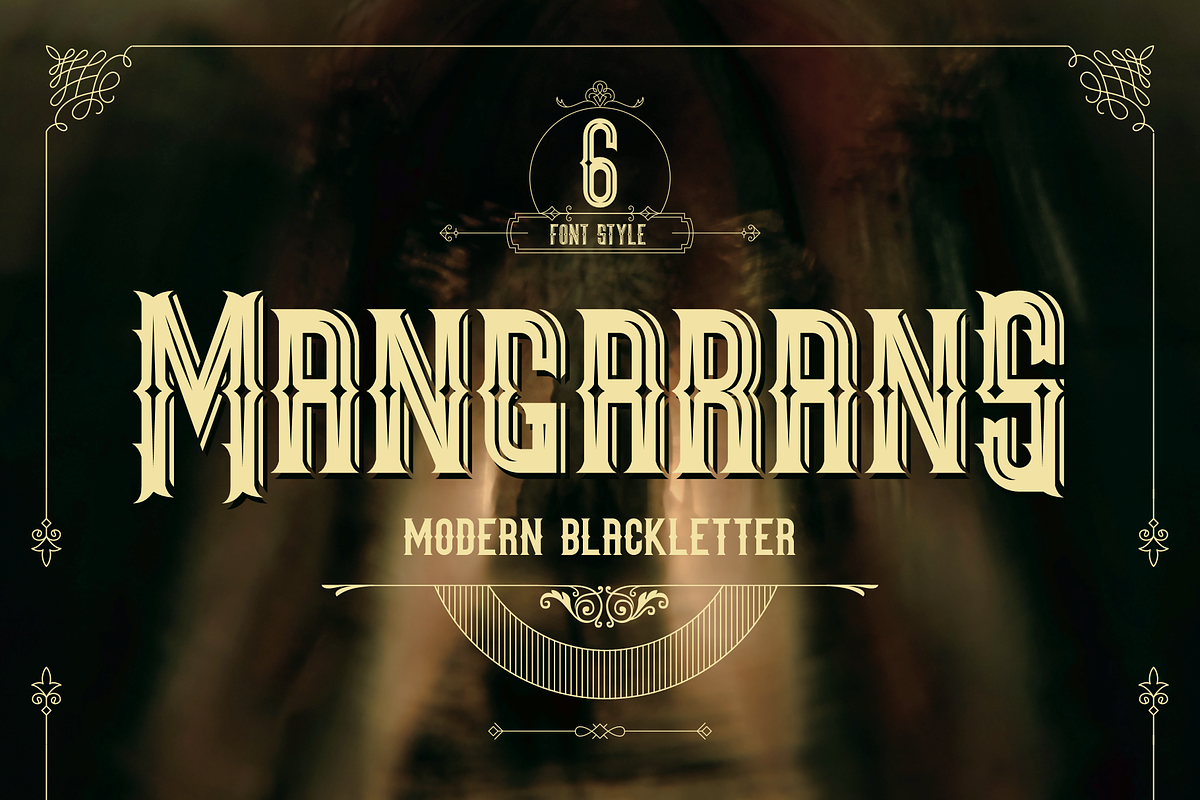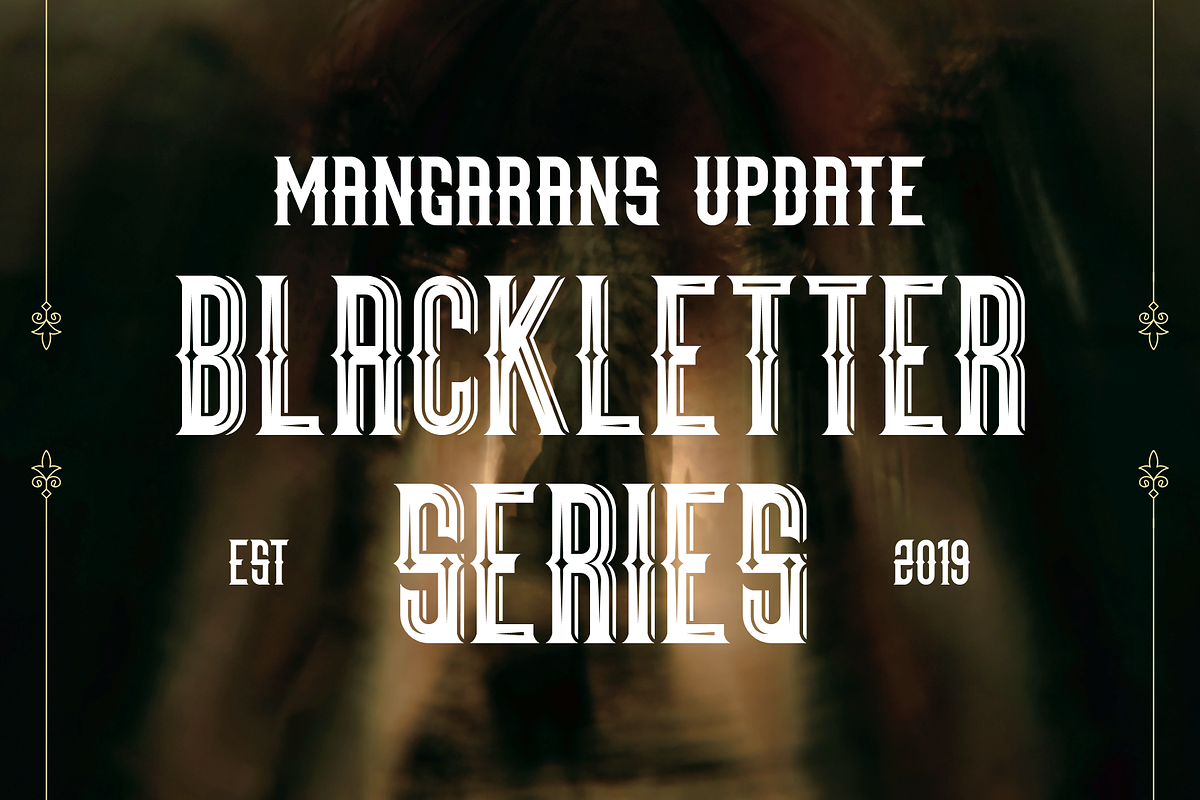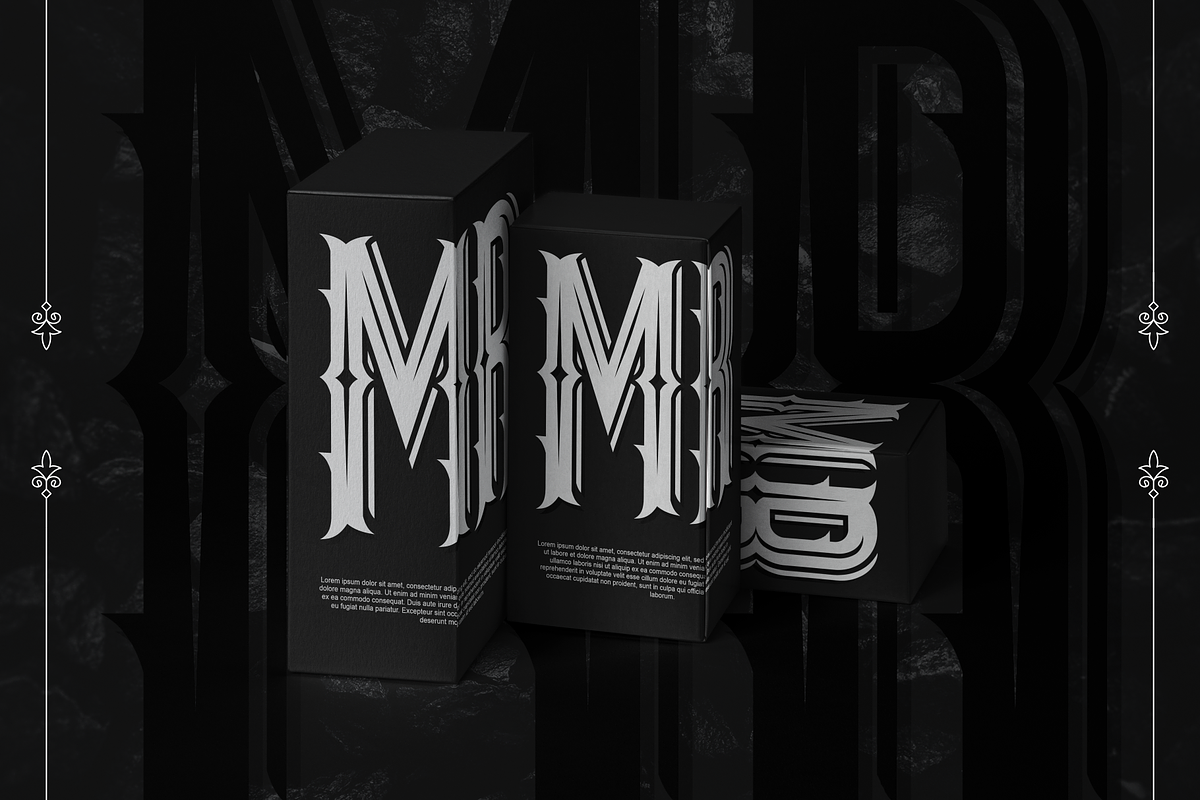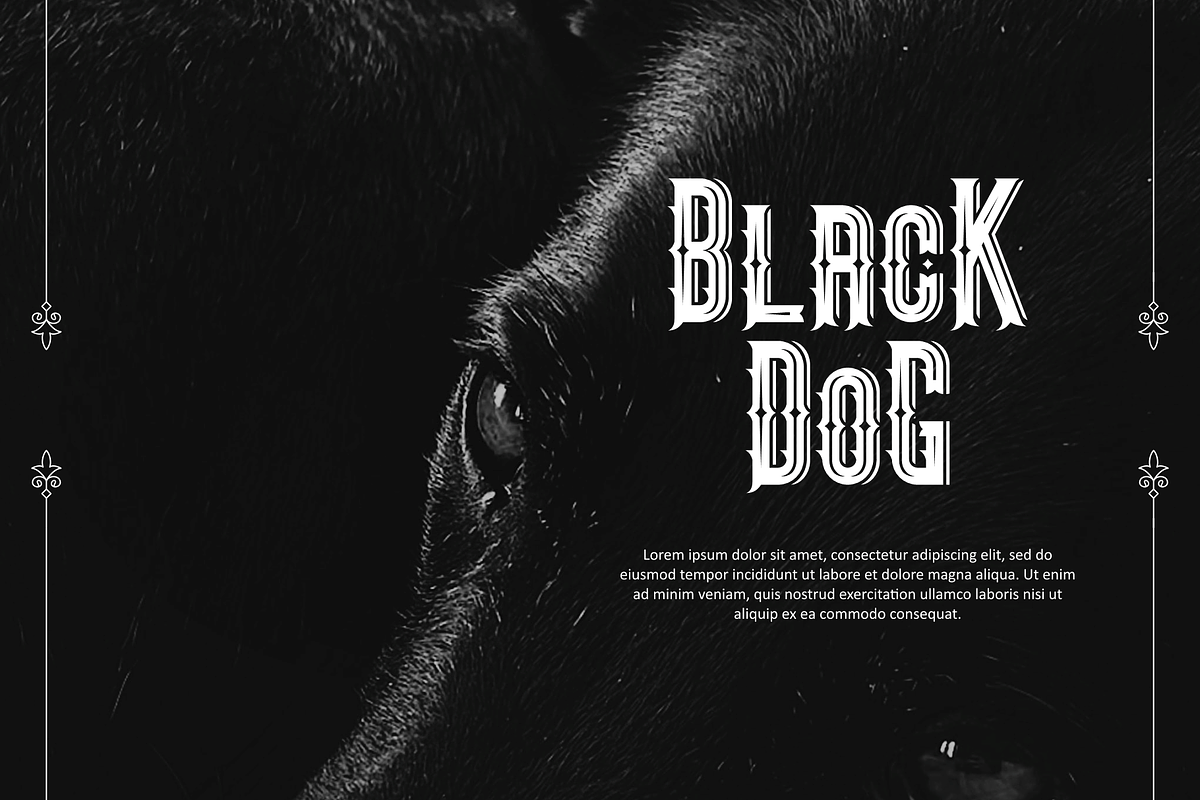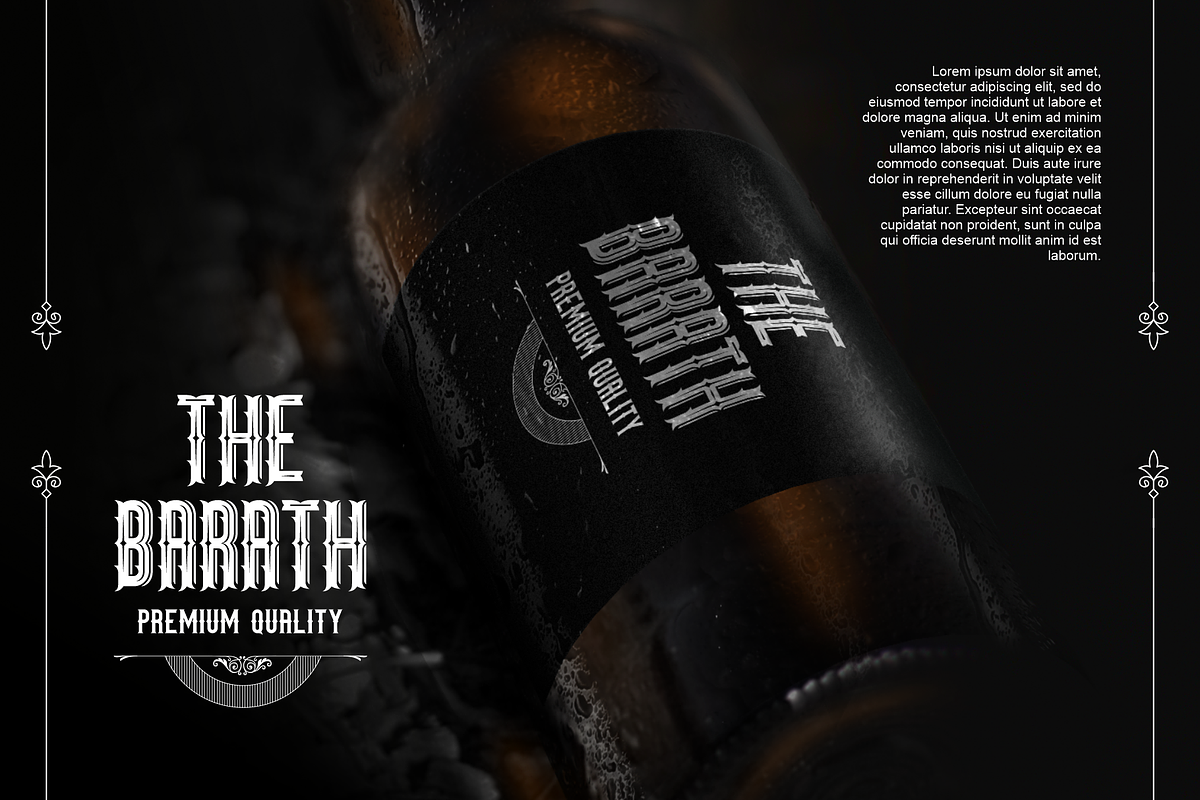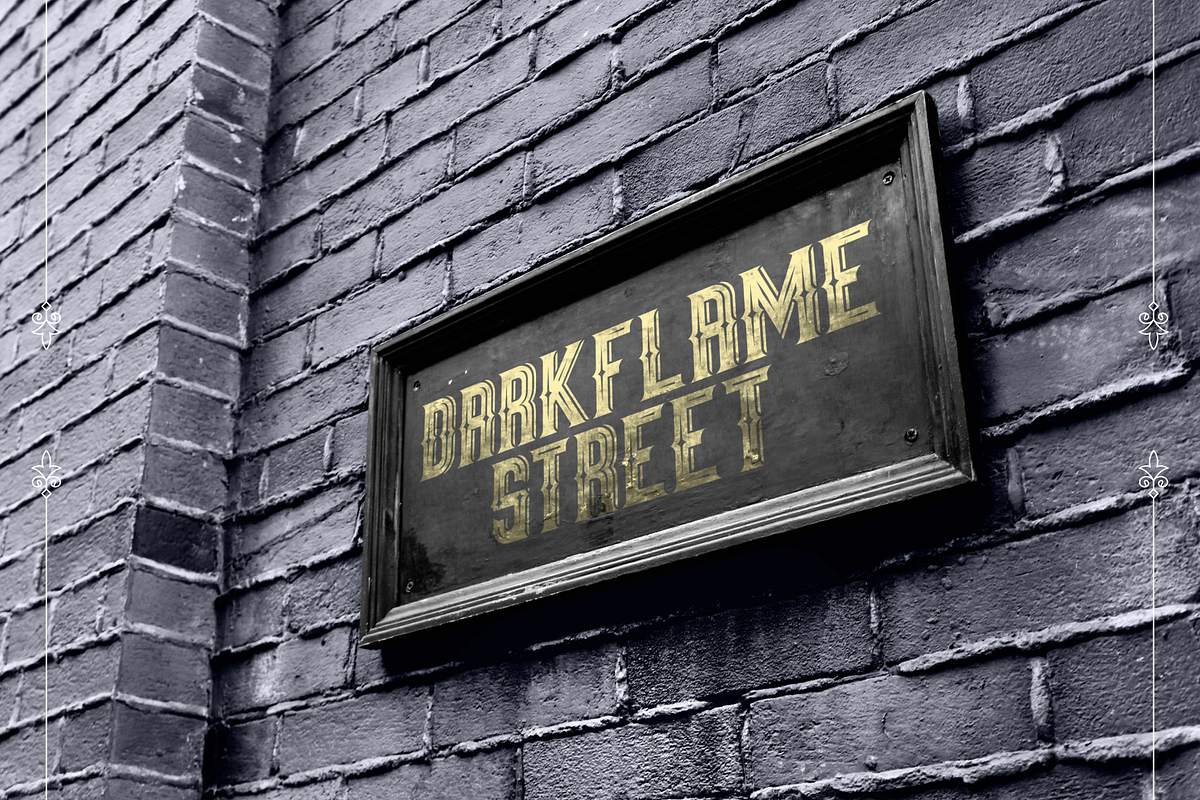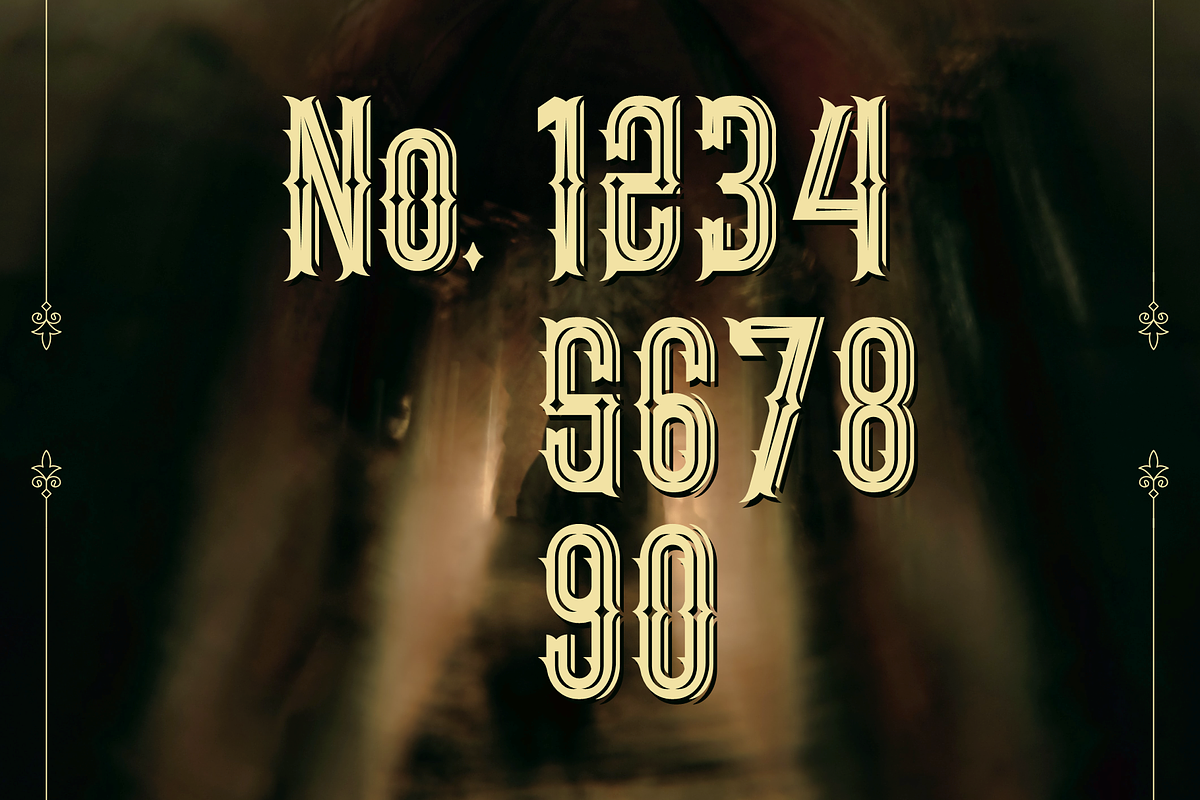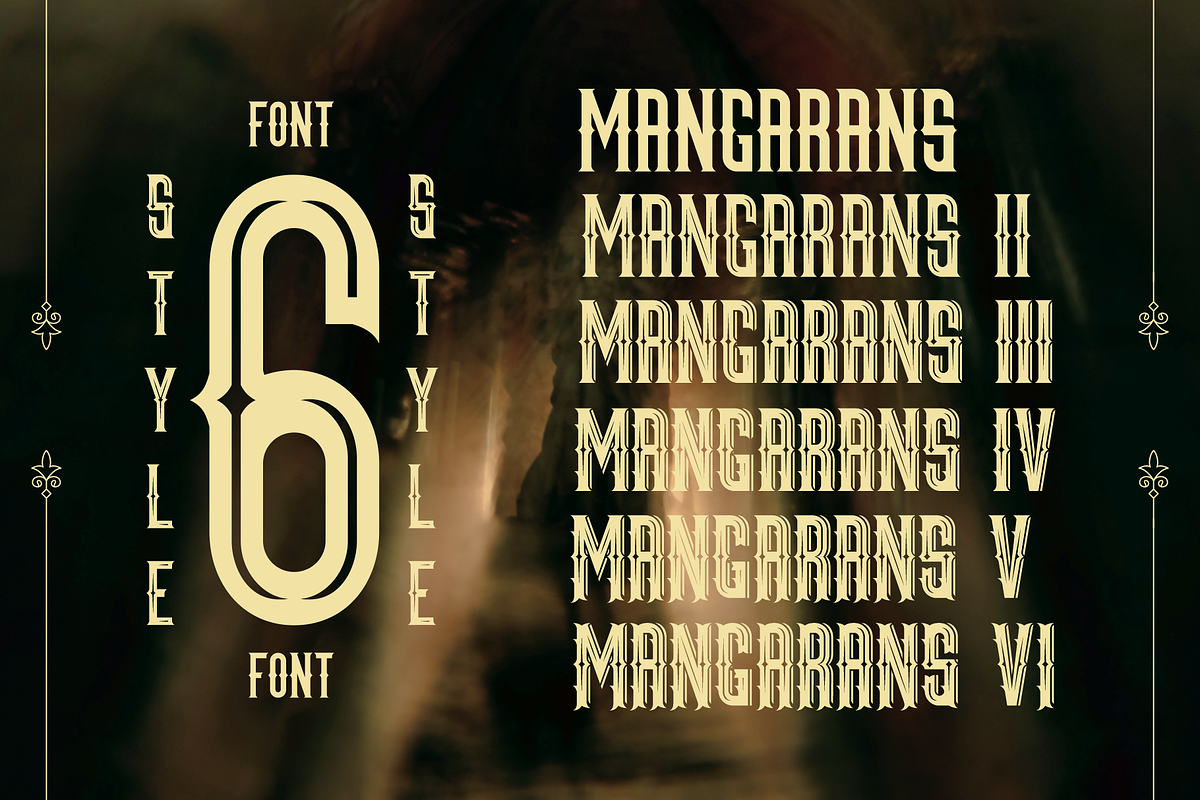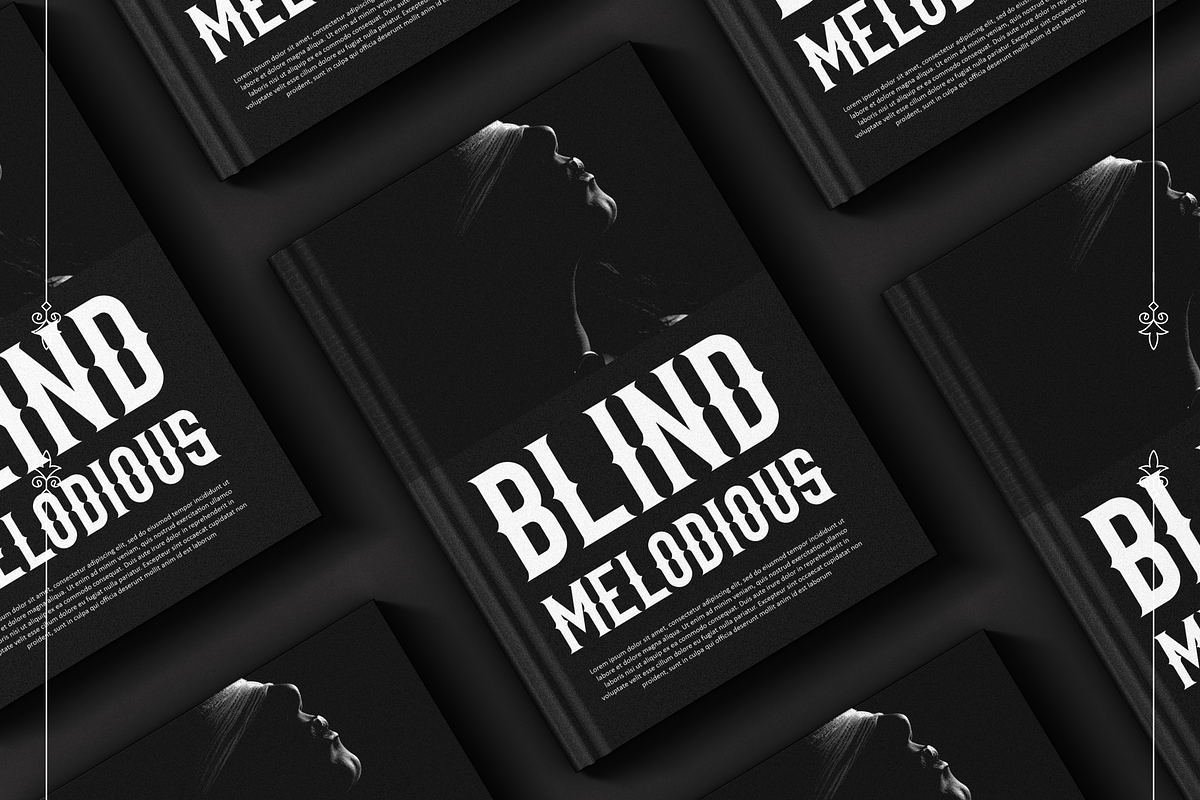
Mangarans | 6 Blackletter Series
Mangarans is a Modern Victorian Blackletter, which is combining modern and classic typography. It has a vintage feel, and as a result, it matches a wide variety of designs. Get inspired by its retro feel.